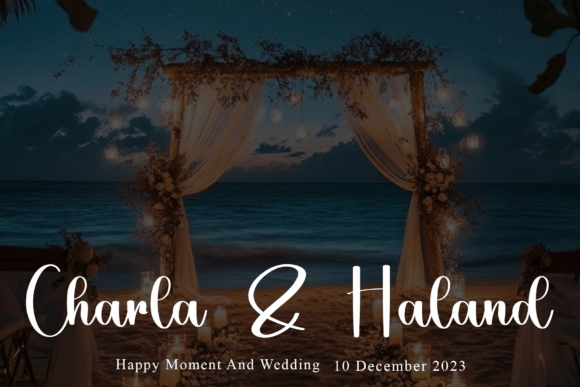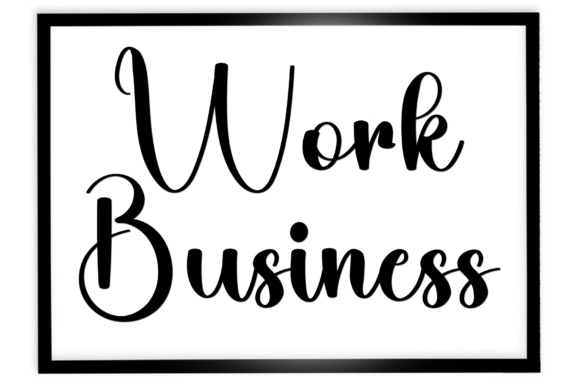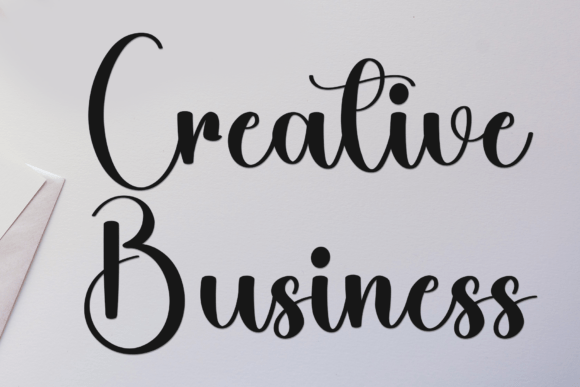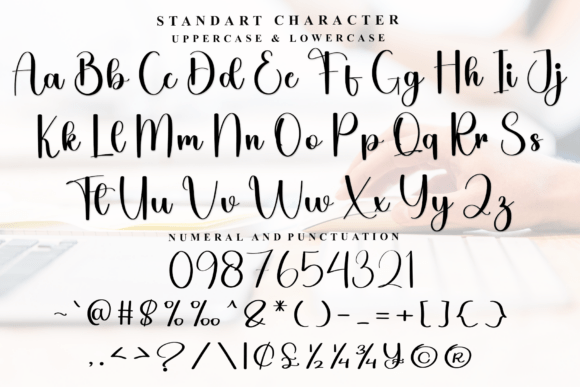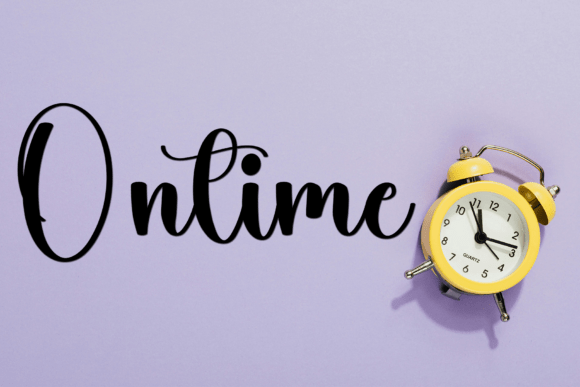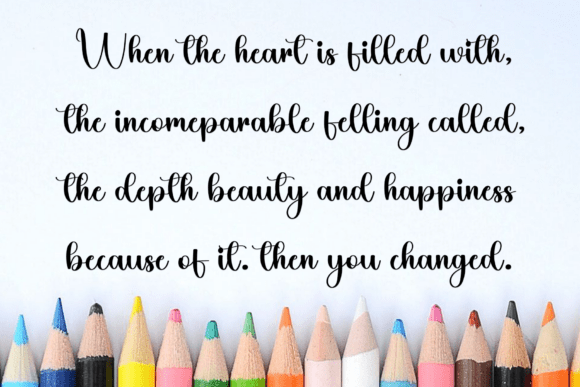
Catalina Signature Font: Elevate Your Designs with Elegance and Fluidity
In the world of typography, few fonts manage to capture the essence of elegance and fluidity as effectively as Catalina Signature. This modern calligraphy font is a masterpiece of design, perfect for those seeking to add a touch of class and charm to their projects. Whether you’re working on branding, wedding invitations, social media posts, or product packaging, Catalina Signature is the ideal choice for designers and crafters looking to infuse their work with sophistication and style.
The Beauty of Catalina Signature
Catalina Signature is a handwritten typeface that boasts graceful curves and smooth lines, creating a natural, flowing script that brings a personal and handcrafted feel to your designs. The font’s traditional calligraphic elements are balanced with a contemporary twist, making it a versatile choice for a wide range of applications. From logos and stationery to wedding invitations and product packaging, Catalina Signature is the perfect font for anyone looking to add a touch of elegance and refinement to their work.
Key Features of Catalina Signature
- Elegant and Fluid Design: Catalina Signature’s modern calligraphy style ensures that your text flows smoothly and elegantly across any medium.
- Perfect for Branding: Establish your brand’s identity with a sophisticated and stylish font that communicates luxury and quality.
- Versatile and Readable: Despite its elegant appearance, Catalina Signature maintains high readability, making it suitable for both headings and body text.
- Handcrafted Feel: The font’s natural, handwritten appearance adds a personal touch to your designs, making them stand out in a digital age.
- Wide Range of Applications: Ideal for logos, stationery, wedding invitations, social media posts, product packaging, and more.
Why Choose Catalina Signature?
There are countless fonts available to designers and crafters, but Catalina Signature stands out for several reasons:
- Unique and Memorable: In a sea of generic fonts, Catalina Signature offers a unique and memorable aesthetic that will set your designs apart.
- Time-Saving: With its high readability and elegant appearance, Catalina Signature saves you time and effort in finding the perfect font for your project.
- High-Quality Design: Crafted with care, Catalina Signature is a high-quality font that reflects your professionalism and attention to detail.
How to Use Catalina Signature Effectively
To make the most of Catalina Signature, consider the following tips:
- Pair with Complementary Fonts: Combine Catalina Signature with simpler fonts to create visual contrast and hierarchy in your designs.
- Experiment with Colors: While Catalina Signature looks stunning in black or dark colors, don’t be afraid to experiment with other hues to match your brand’s palette.
- Adjust Letter Spacing: Fine-tune the letter spacing to ensure optimal readability and aesthetic appeal.
Catalina Signature is more than just a font – it’s a design statement. With its elegant and fluid design, versatility, and handcrafted feel, this modern calligraphy font is perfect for designers and crafters looking to elevate their work. Whether you’re creating branding materials, wedding invitations, or product packaging, Catalina Signature is the ideal choice for anyone seeking to add a touch of class and charm to their designs. So why settle for ordinary fonts when you can make a statement with Catalina Signature?